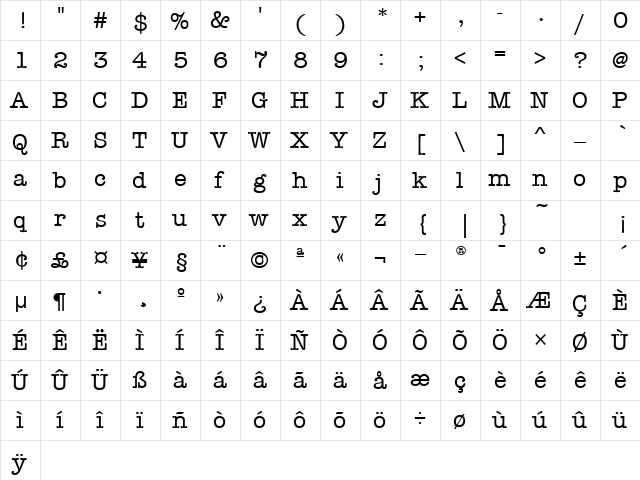
AmTypewriterMdITCTT Regular
| Foundry | International Typeface Corporation |
| Designer | Tony Stan/Joel Kaden |
Design Context for AmTypewriterMdITCTT Typeface
AmTypewriterMdITCTT brings the precise, column-aligned rhythm of monospaced typography to designs that value technical clarity and systematic order.
Well-suited to data-driven dashboards, coding tutorials, and any design that wants to reference the world of programming.
Pro Tip: Use AmTypewriterMdITCTT with slightly increased line-height for extended reading — fixed-width spacing can feel dense in longer passages without extra breathing room.